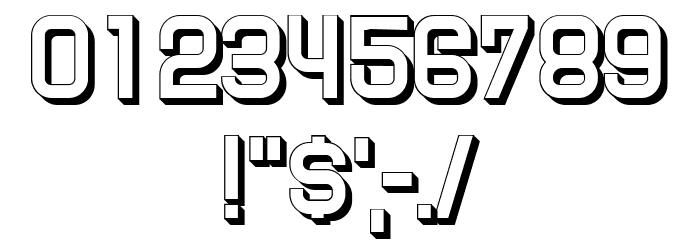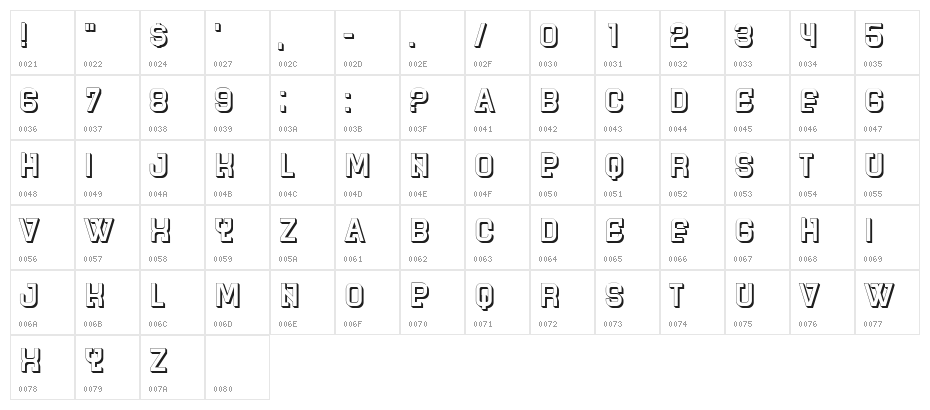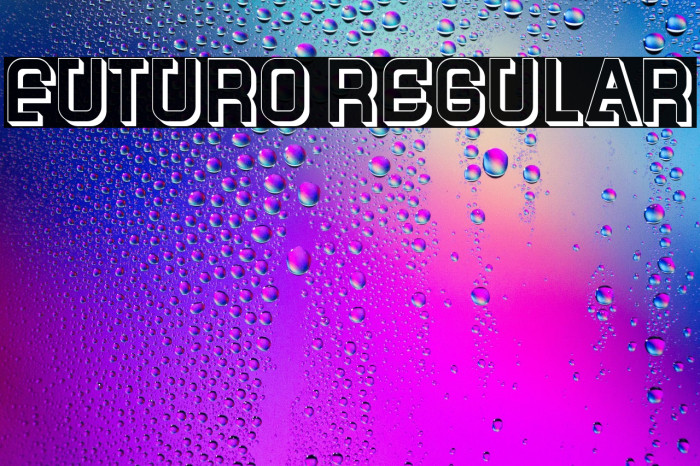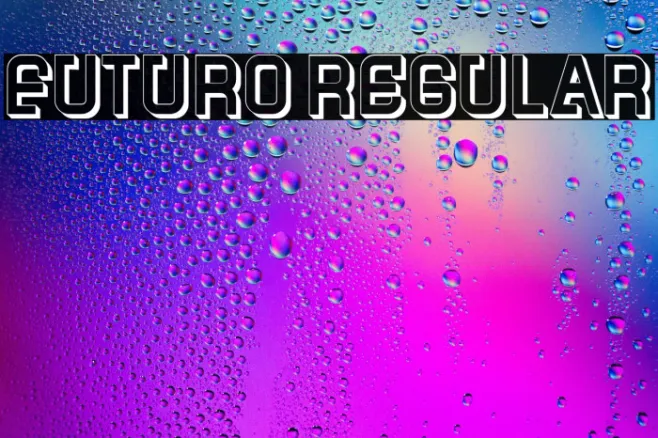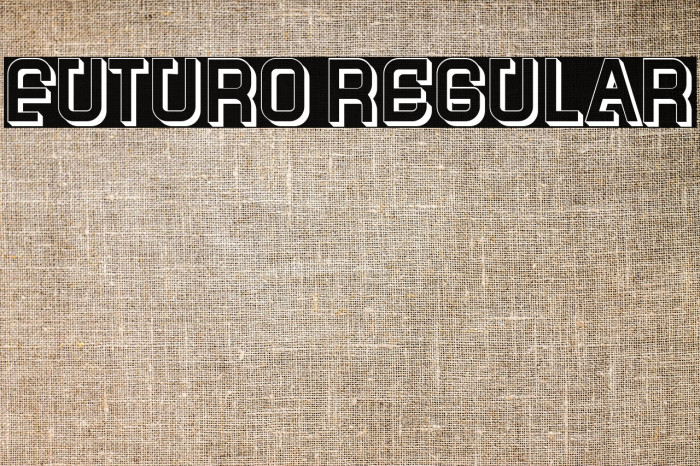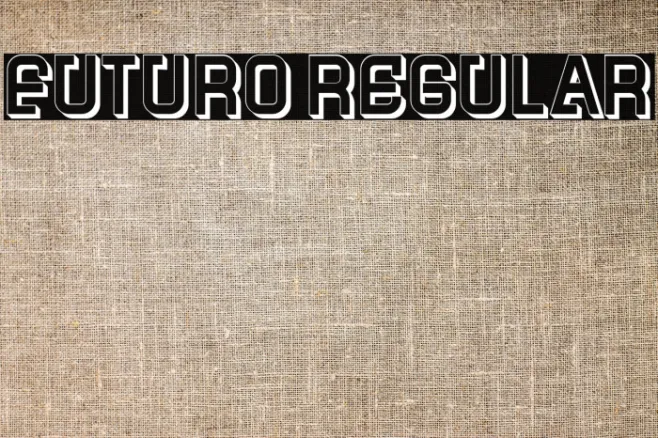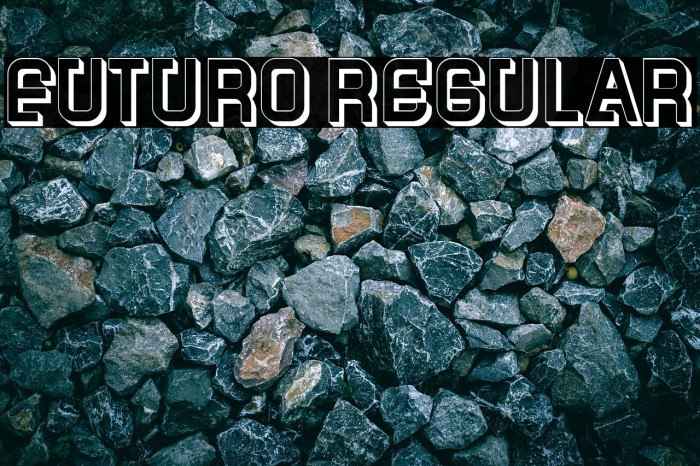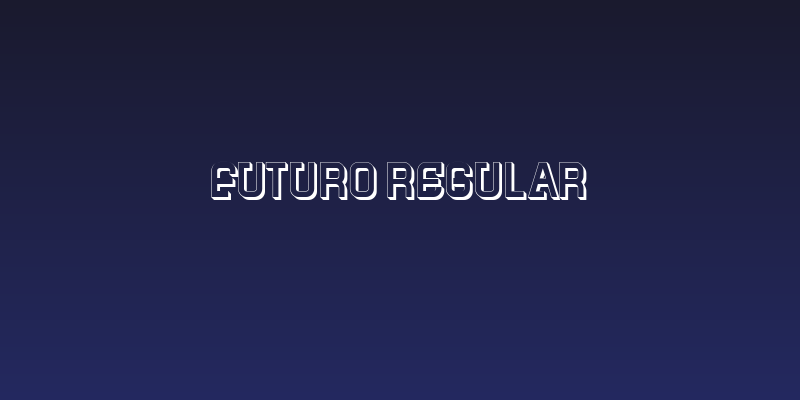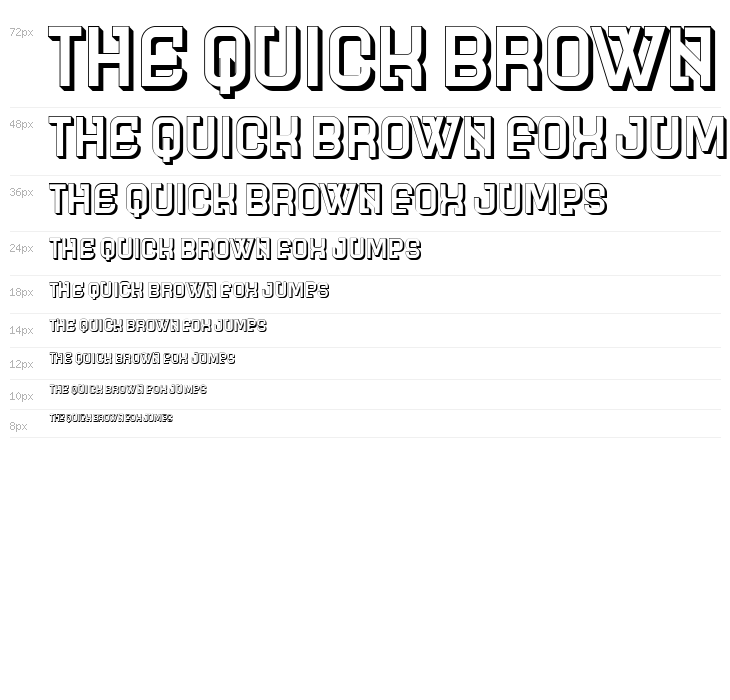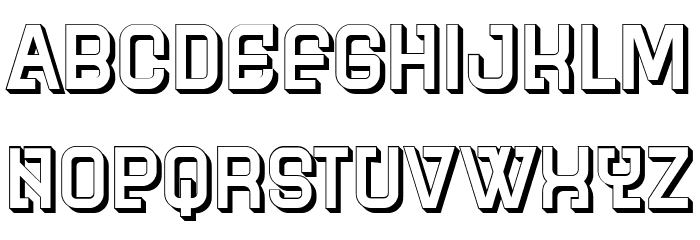
Futuro Regular Font
Futuro Regular Description
This font features a bold, geometric design with a three-dimensional effect that gives it a striking and modern appearance. The characters are constructed with clean lines and sharp angles, creating a sense of depth and dimension. The uppercase and lowercase letters maintain a consistent style, with the uppercase being slightly more pronounced. Numbers and special characters are designed to match the bold and structured aesthetic of the letters. The font's unique style makes it stand out, making it suitable for attention-grabbing designs.
| Proposed Projects | Ideal for futuristic designs, tech branding, posters, and headlines. |